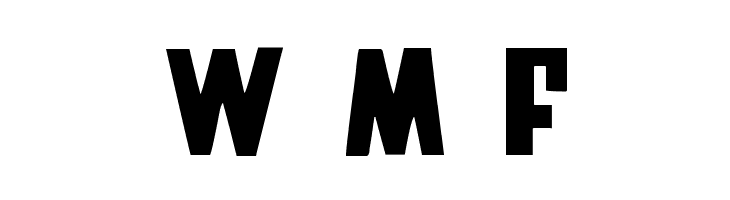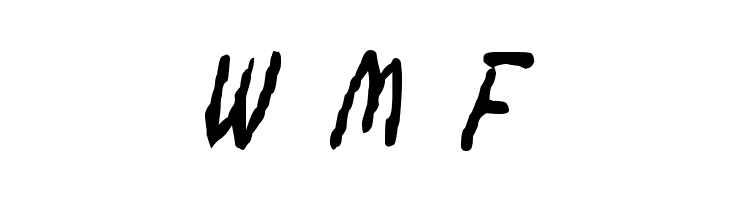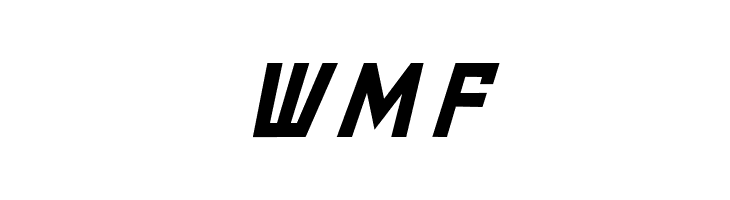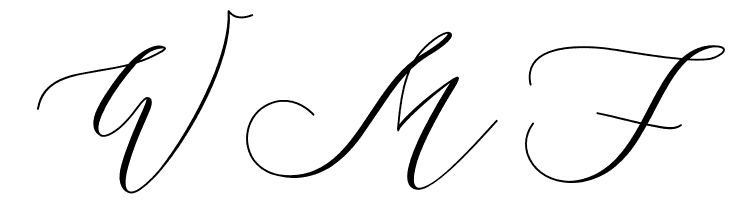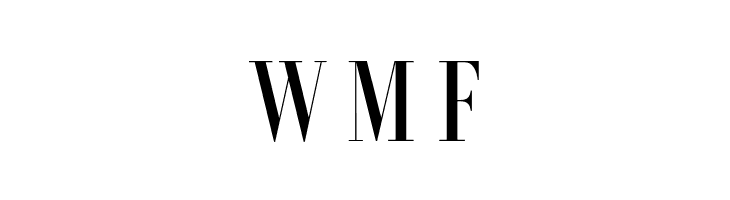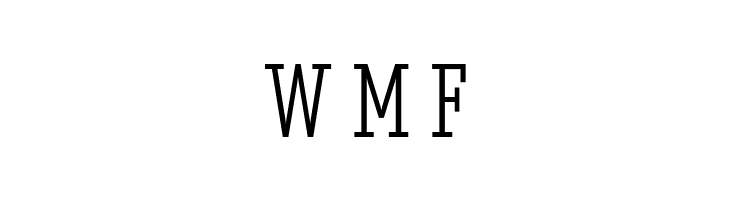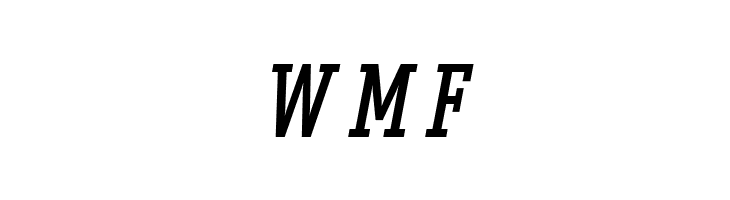
A bold, geometric font with a strong, blocky appearance.
A vintage typewriter-style font with a handwritten, authentic feel.
A bold, italicized font with a dynamic and expressive style.
A bold, italicized font with angular, geometric characters.
A playful, handwritten script font with smooth, rounded strokes.
A graceful and elegant script font with fluid strokes.
A modern serif font with elegant, semi-bold letterforms and refined details.
A modern, clean font with tall, narrow uppercase letters and consistent lowercase design.
A modern italic font with bold, condensed uppercase and artistic numbers.
A bold, angular font with a futuristic and geometric design.